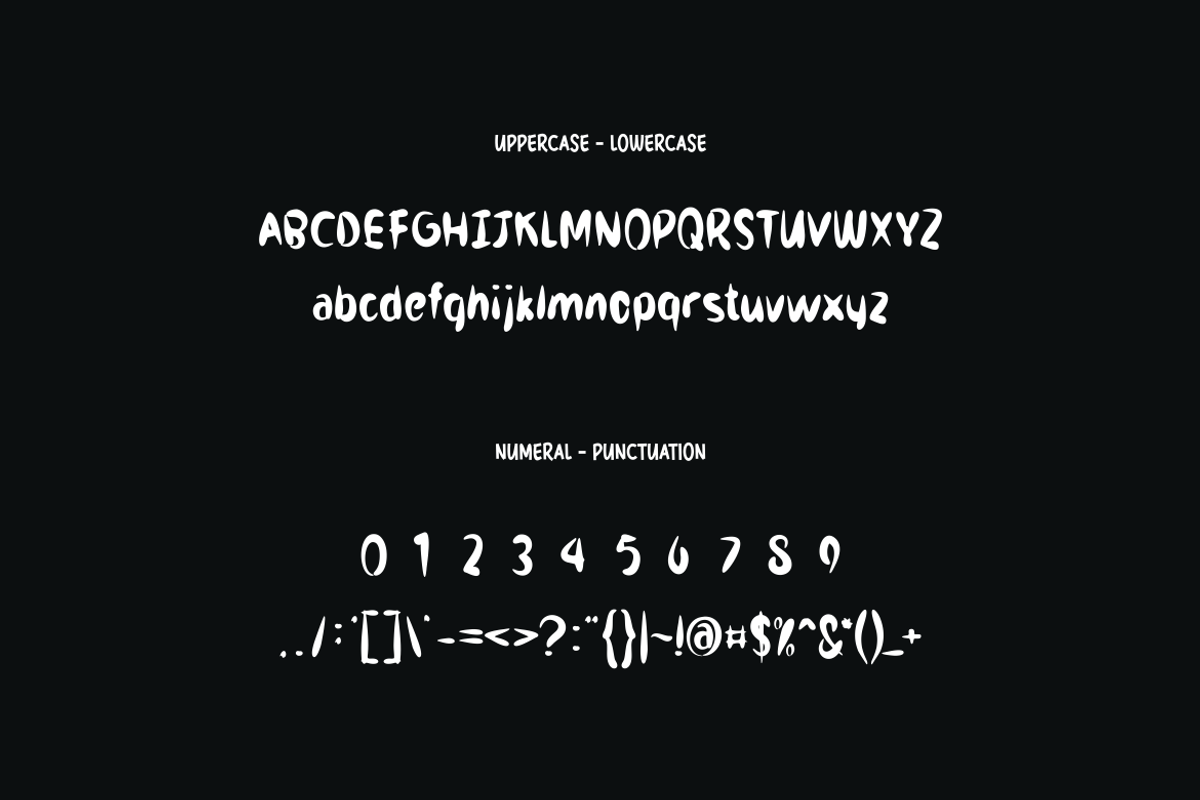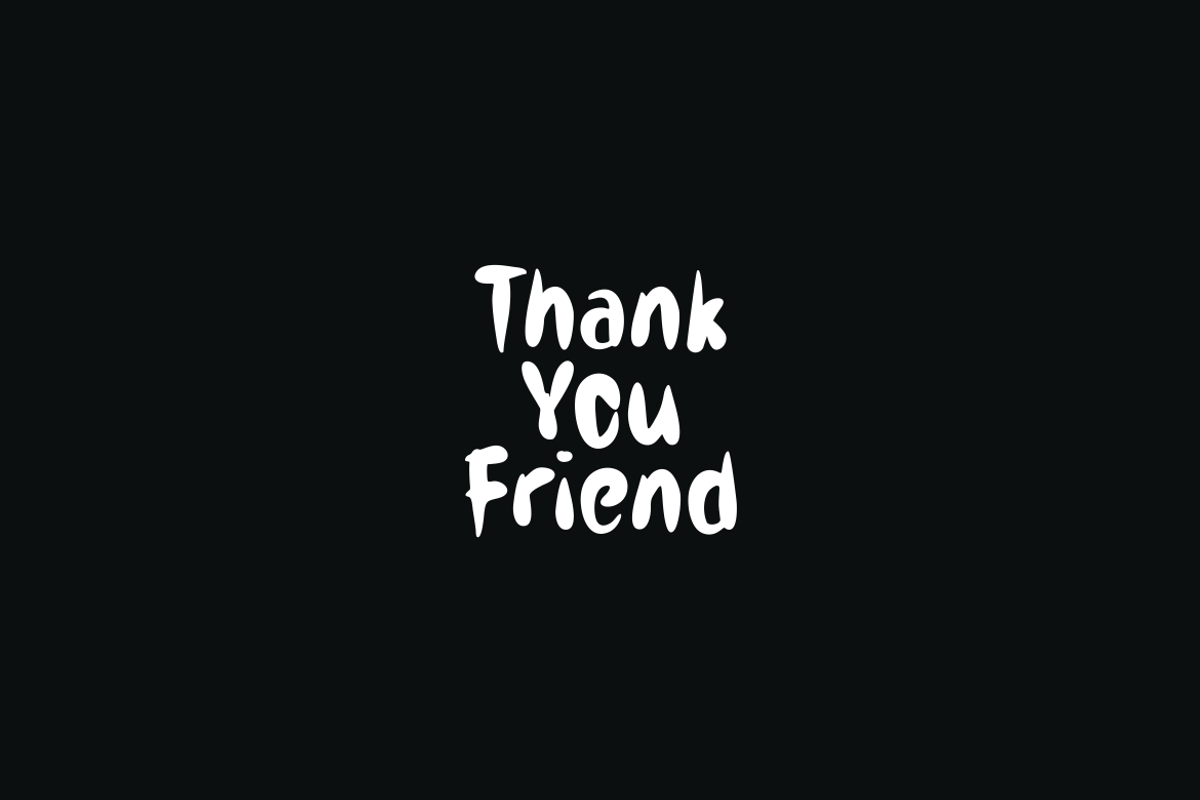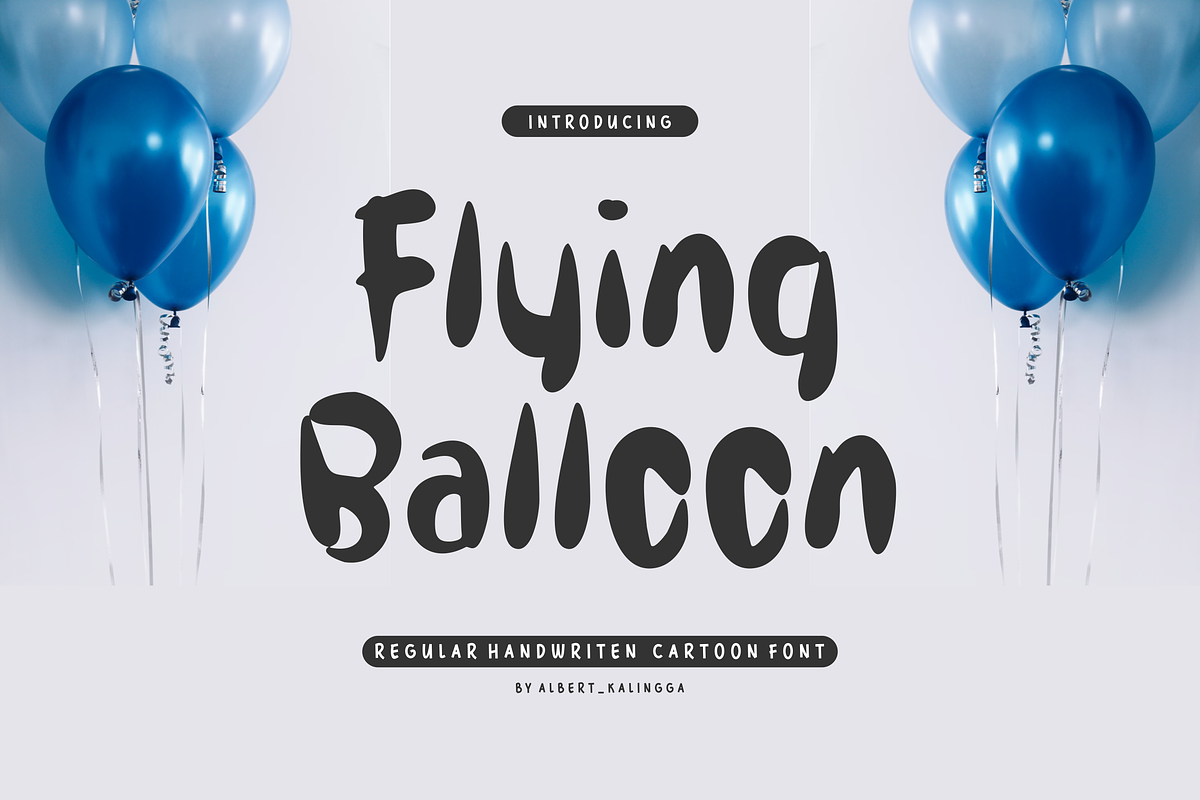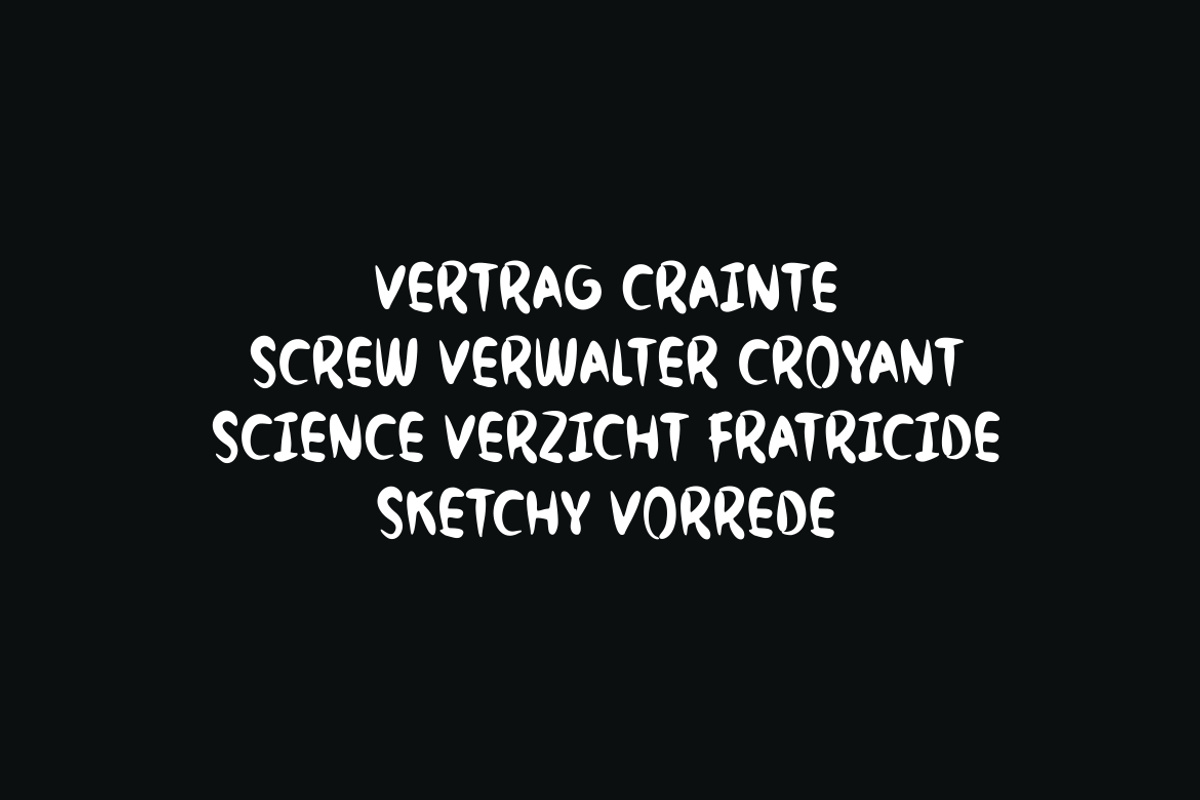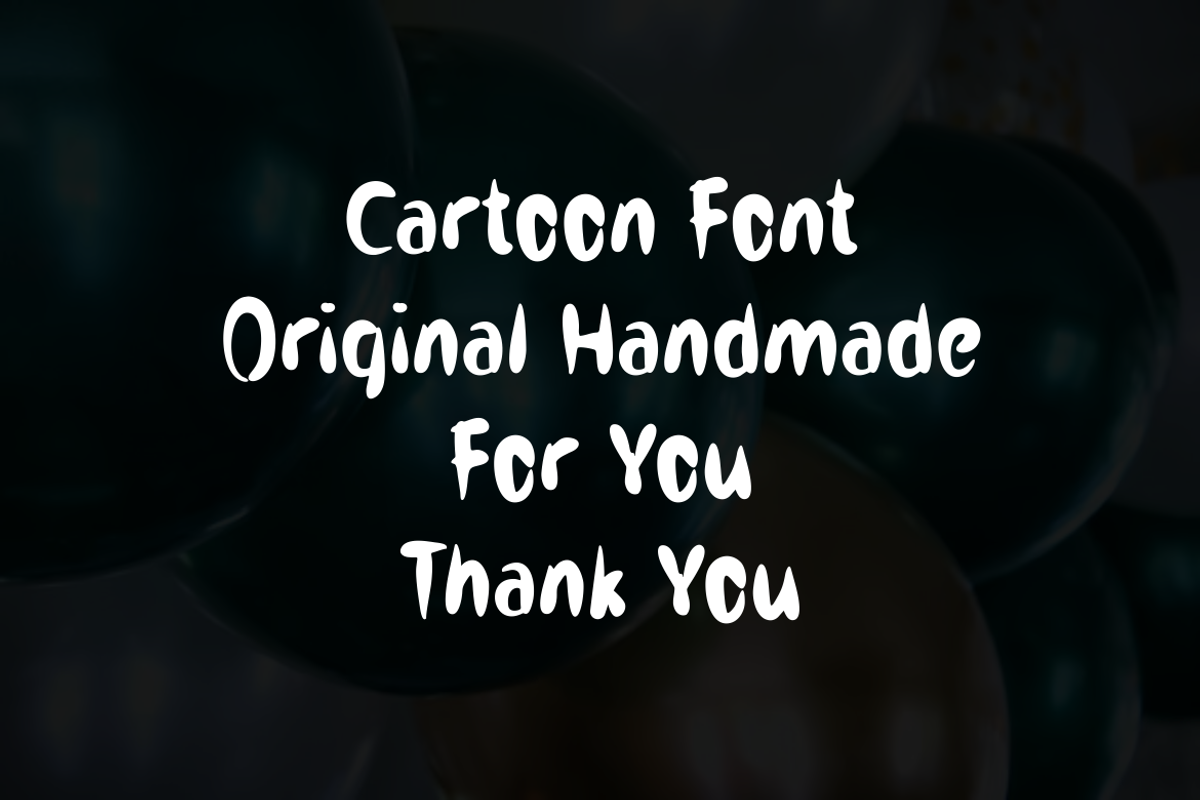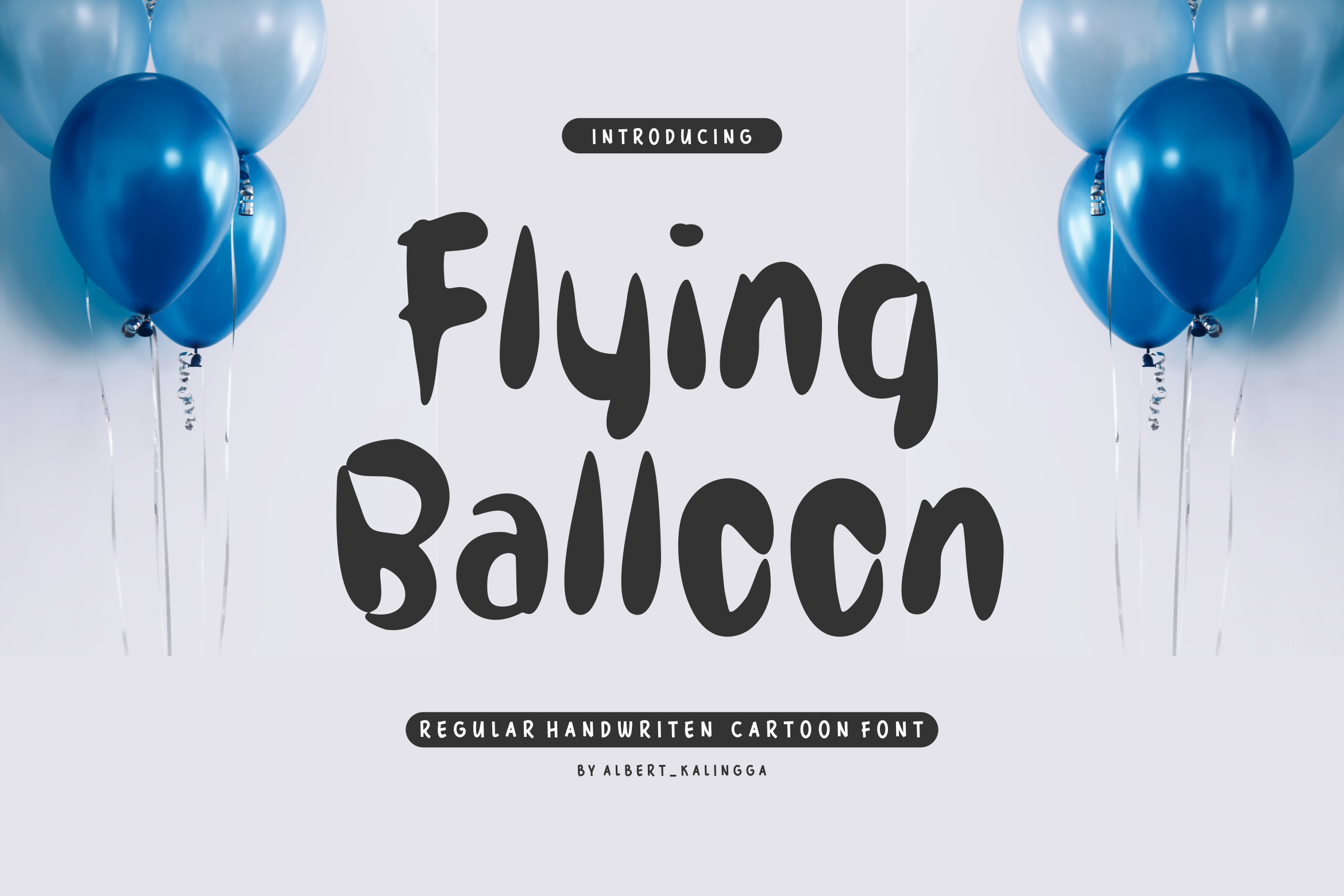
Flying Balloon Font
Introducing our new product Flying Balloon Font - Modern Font
Flying Balloon Font - Modern Font is a bold and authentic display font. The font is suitable for any branding project like logo, esport, and many more. outstanding in a wide range of contexts.